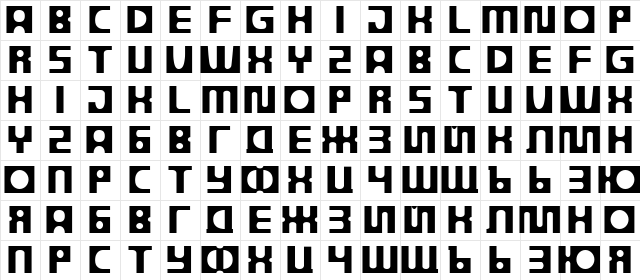
DS Progress SemiBold
Design Context for DS Progress Typeface
DS Progress is a composed and adaptable typeface that performs quietly and consistently across a wide range of design contexts. The heavy weight commands attention and anchors typographic hierarchies.